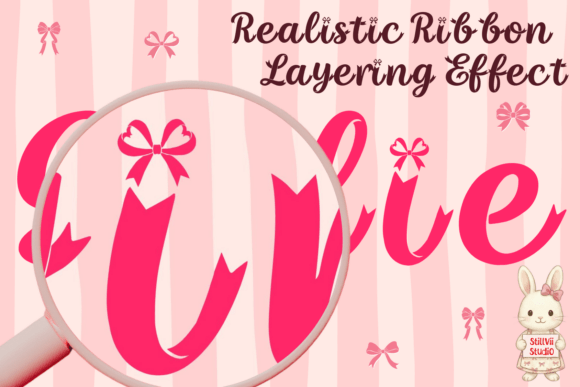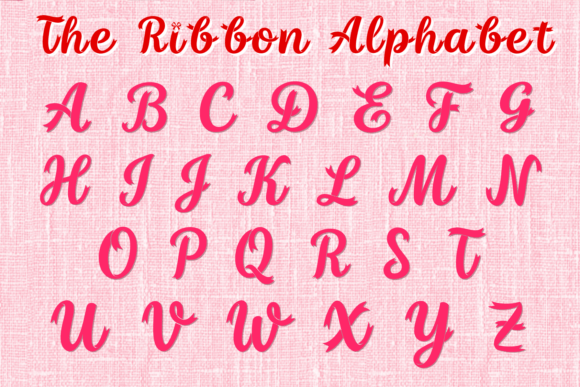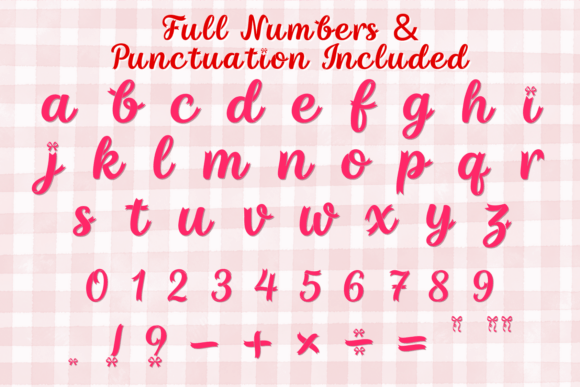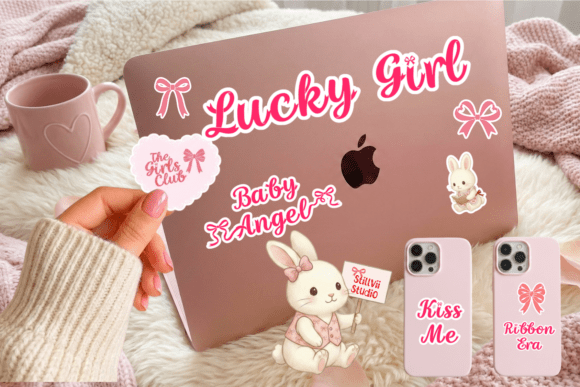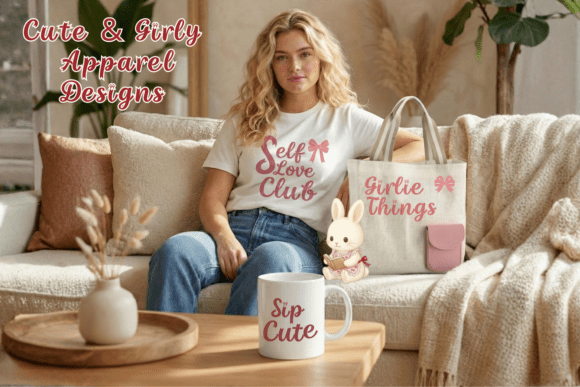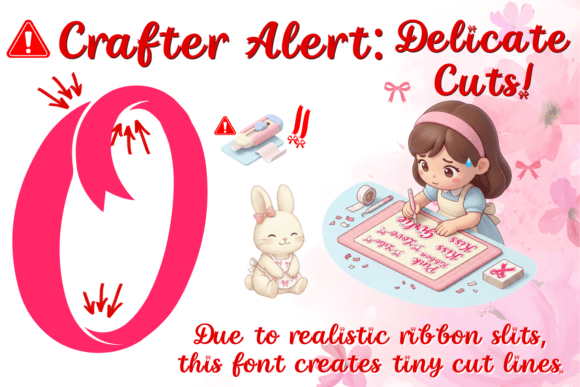
Tie Your Designs with Elegance using Coquette Ribbons – The Realistic Satin Bow Font! πβ¨
Are you tired of using standard script fonts that lack the elegance and sophistication you need for your designs? Look no further than Coquette Ribbons, the viral font that’s taking the design world by storm! π This stunning font is designed to mimic the look of real satin ribbons, complete with intricate folds, delicate layering effects, and ultra-realistic textures that will make your designs stand out from the crowd.
What Makes Coquette Ribbons So Special?
Unlike standard script fonts, Coquette Ribbons is designed with realistic fabric textures that give it a truly unique and eye-catching look. The font features tiny slits and folds that mimic the look of real ribbon, creating a 3D effect that’s sure to impress. Whether you’re designing high-end wedding invitations, βOld Moneyβ style branding, cute sticker shops, or girlish apparel designs, Coquette Ribbons is the perfect choice.
The Perfect Balance of Luxury and Cute
Coquette Ribbons strikes the perfect balance between high-end fashion and playful coquette style. The font’s luxury aesthetic makes it perfect for high-end designs, while its cute and playful vibe makes it ideal for girlish and feminine designs. Whether you’re going for a sophisticated or playful look, Coquette Ribbons has got you covered.
Key Features of Coquette Ribbons
- Ultra-Realistic Texture: Features tiny slits and folds to look like real ribbon, not just a flat drawing.
- Layering Effect: The letters are designed to weave over and under each other for a 3D look.
- Luxury & Cute: Perfect balance between high-end fashion and playful coquette style.
Coquette Ribbons is perfect for designers and crafters who want to add a touch of elegance and sophistication to their work. Whether you’re designing wedding invitations, branding materials, stickers, or apparel, this font is sure to impress. The realistic satin bow font is also perfect for crafters who want to create beautiful and unique projects that stand out from the crowd.
Unleash Your Inner Girlie with Coquette Ribbons
Coquette Ribbons is more than just a font – it’s a vibe. It’s perfect for anyone who wants to unleash their inner girlie and add a touch of elegance and sophistication to their designs. With its ultra-realistic texture, layering effect, and perfect balance of luxury and cute, Coquette Ribbons is sure to become your go-to font for all your design needs.